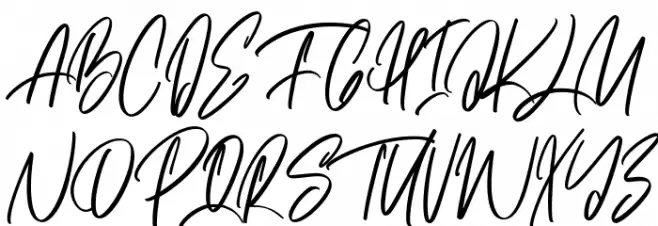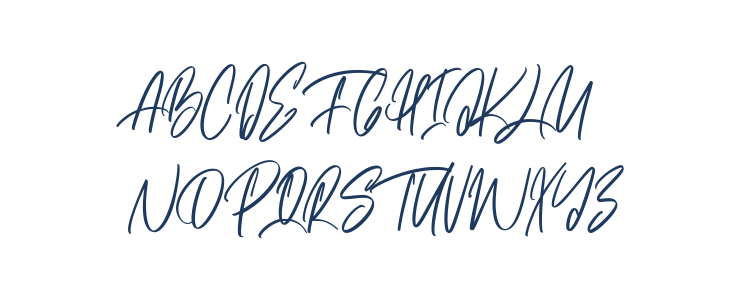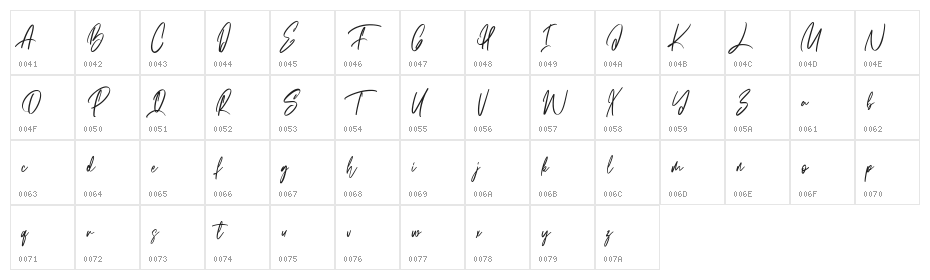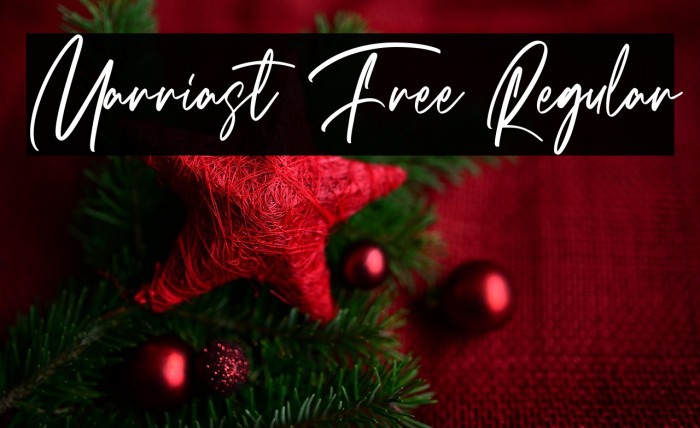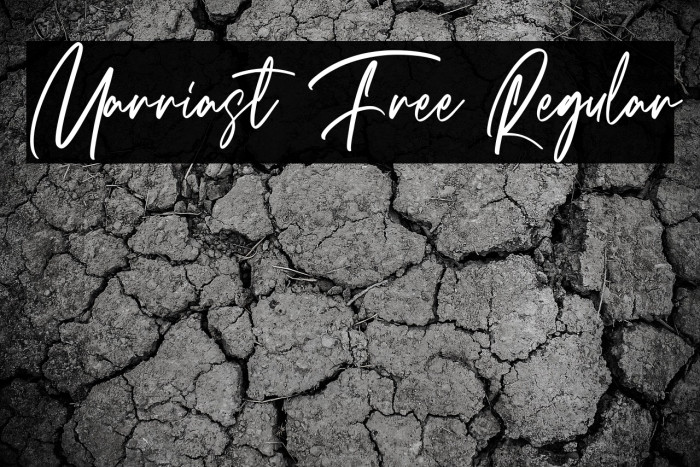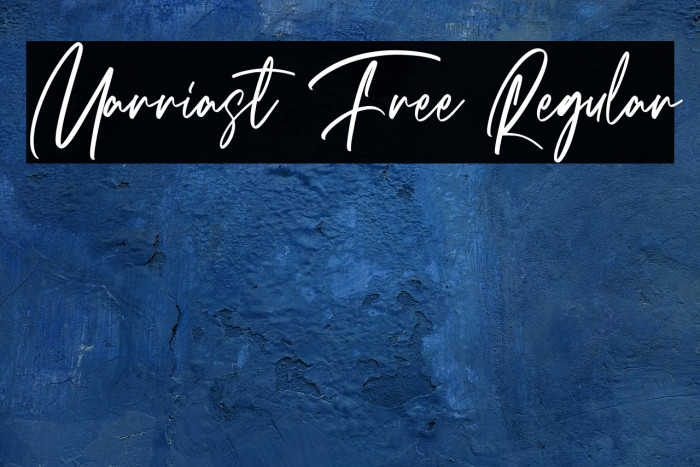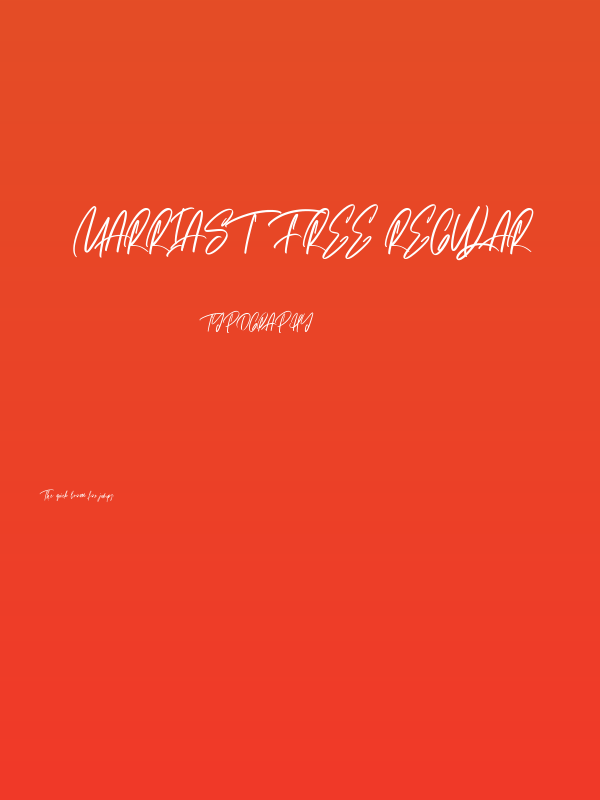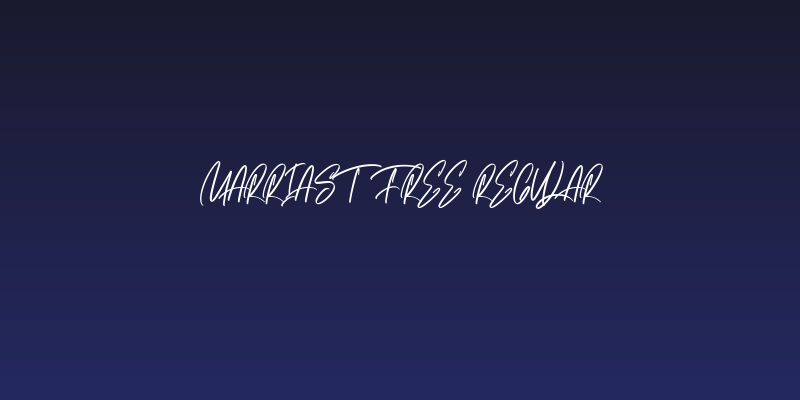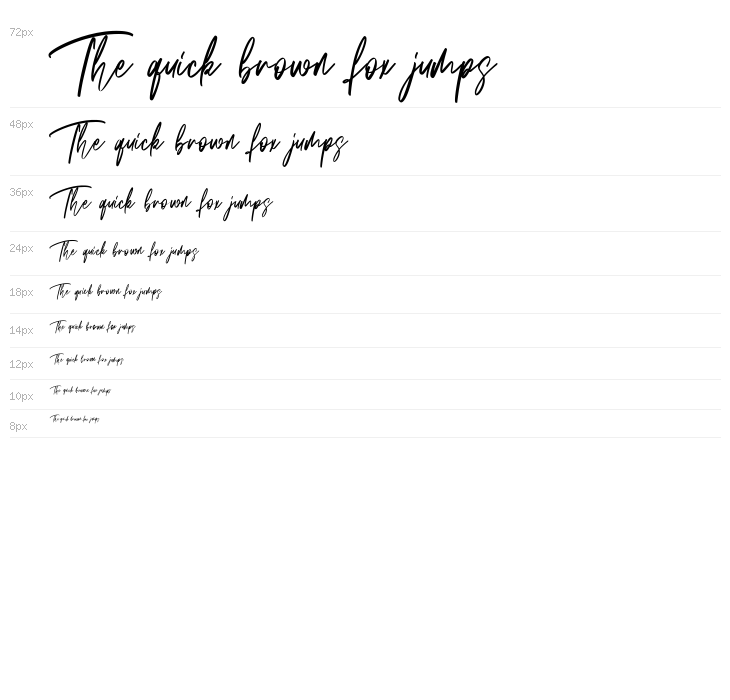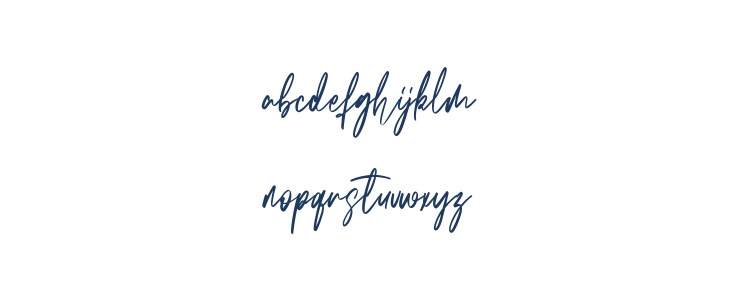
Marriast Free Regular Font
Marriast Free Regular Description
Elegant, cursive script font with flowing, handwritten style, featuring both uppercase and lowercase letters, as well as numerals and special characters.
| Overall Style | Elegant, Handwritten, Script |
| Use Case | Invitations, Greeting Cards, Branding, Logos, Decorative Headings |